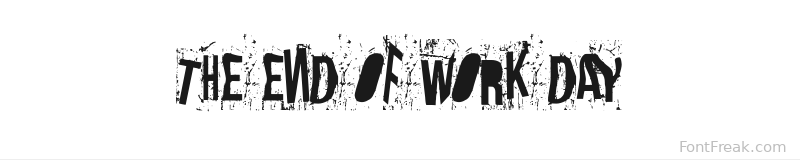
The end of work day
The end of work day by woodcutter Manero is an intriguing display typeface that captures the essence of rustic charm and creative energy. This unique font features a hand-drawn style with irregular stroke weights, giving it an organic and spontaneous feel. The contrast between thick and thin lines adds depth, while the uneven spacing creates a sense of movement and playfulness. Decorative elements reminiscent of wood textures and natural forms enhance its visual appeal, making it a perfect choice for projects that seek to convey authenticity and character.
This font shines in a variety of contexts, making it versatile for numerous applications. It is particularly well-suited for wedding invitations, where its whimsical nature can add a personal touch to the celebration. Additionally, the end of work day works beautifully on movie posters, capturing attention with its bold presence and artistic flair. Restaurant menus can benefit from its rustic aesthetic, inviting diners to experience a warm and welcoming atmosphere. Content creators will also find this font ideal for branding projects, social media graphics, and promotional materials that aim to stand out in a crowded digital landscape.
Targeting graphic designers, small business owners, and content creators, the end of work day font free download presents an excellent opportunity for those looking to incorporate a distinctive typeface into their work. Its ability to evoke emotion and narrative makes it a valuable asset for any creative endeavor. In a world saturated with standard fonts, the end of work day stands out with its unique character and artistic flair, allowing users to express individuality and creativity in their projects.